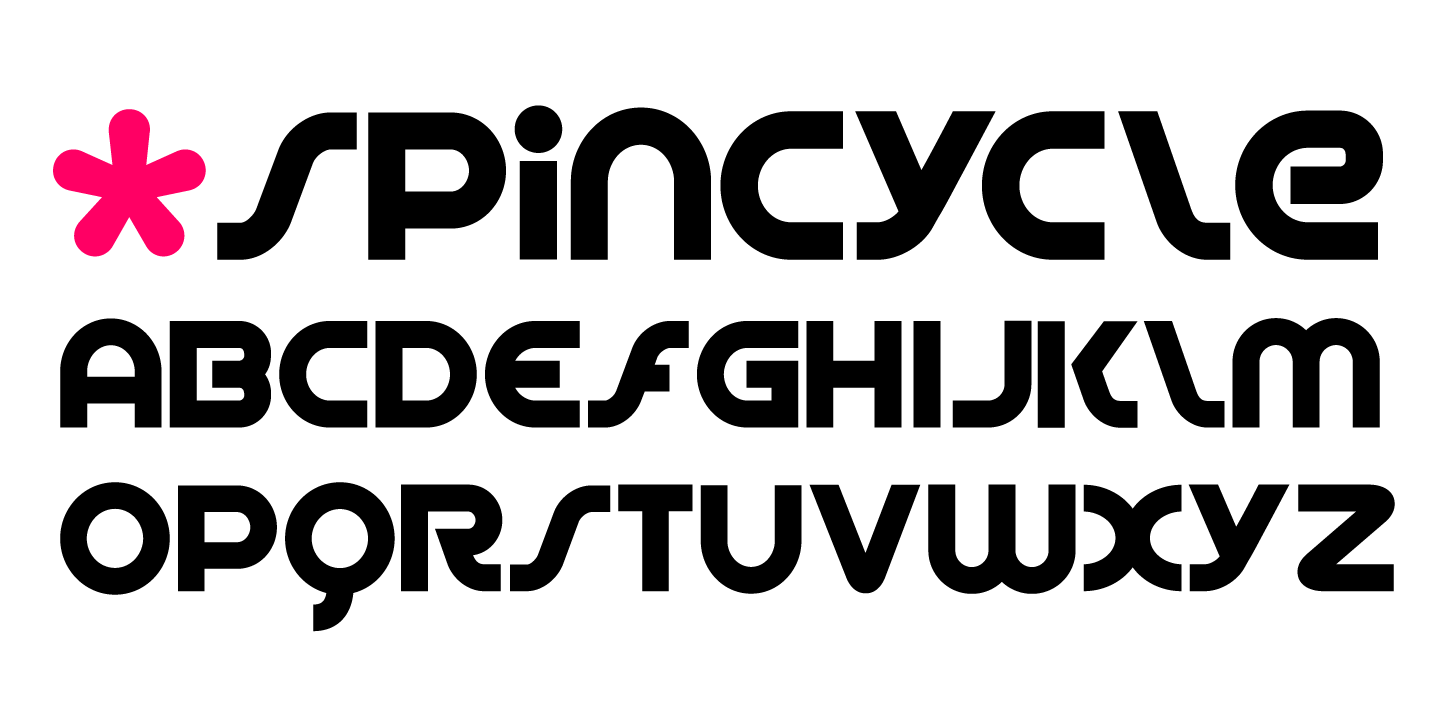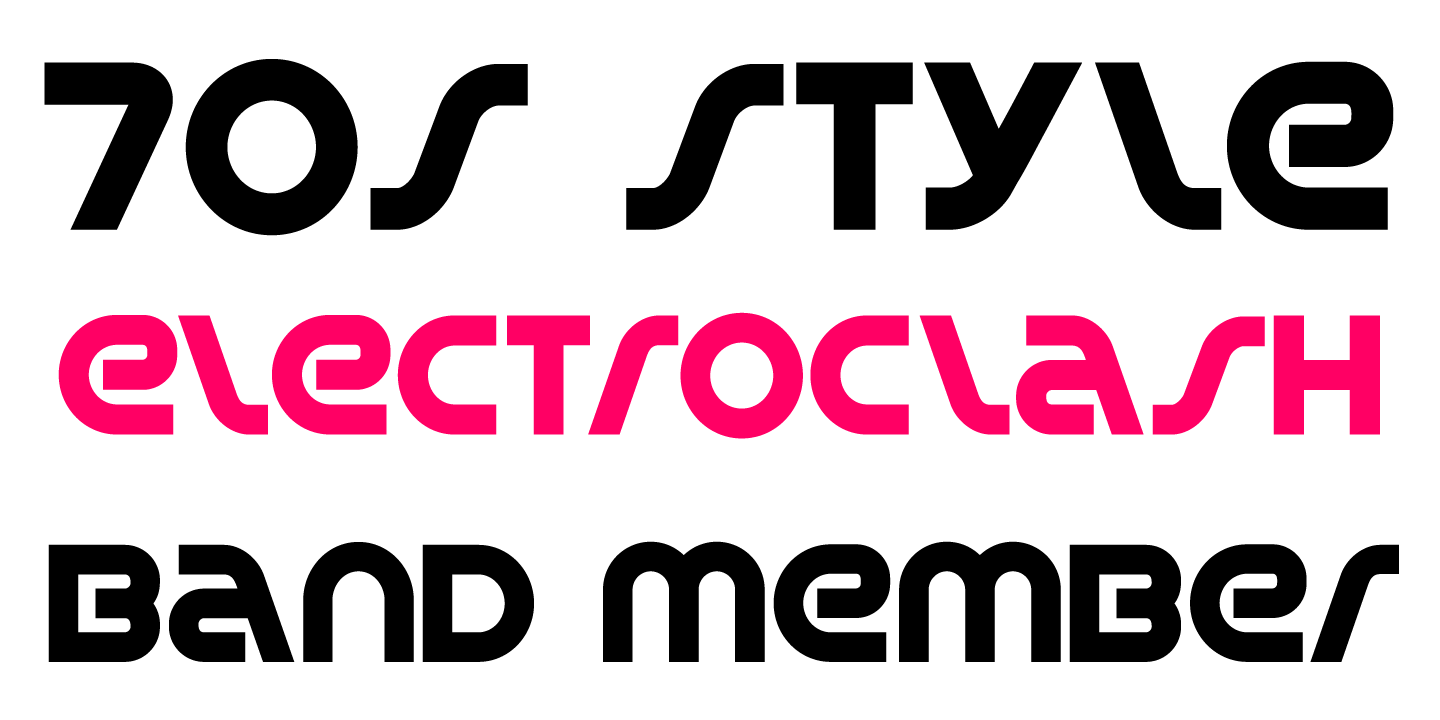
Spin Cycle
An experimental unicase-sans serif typeface. Some of the characters are leaning to the left or right and that was the seed that began the idea for this font.